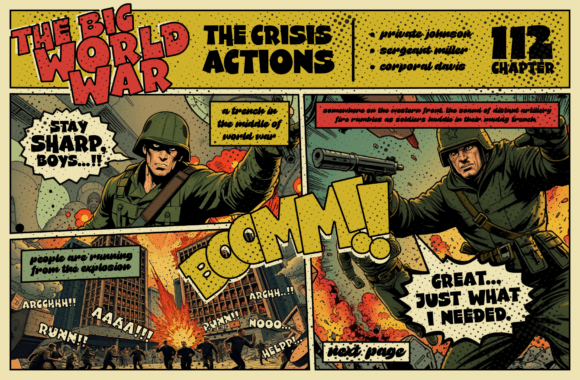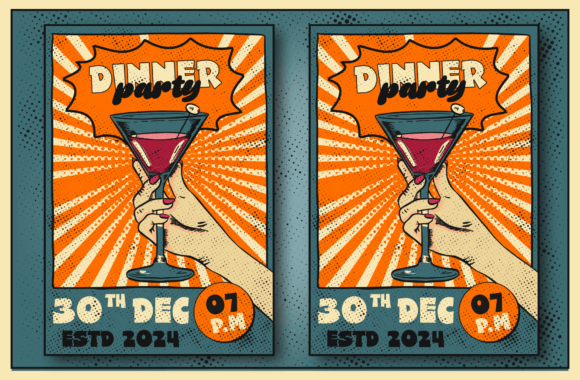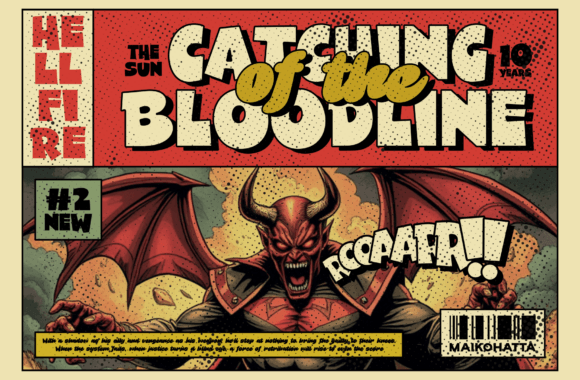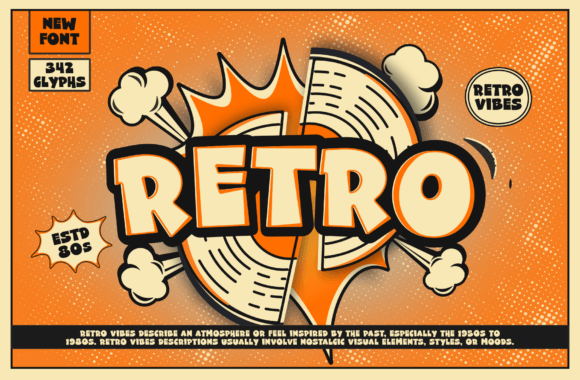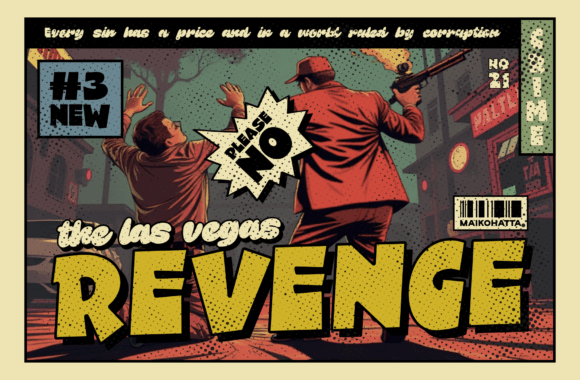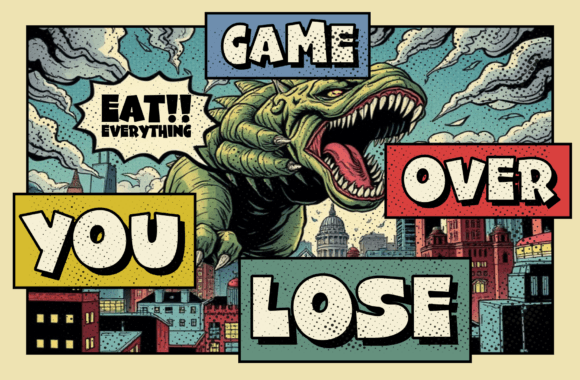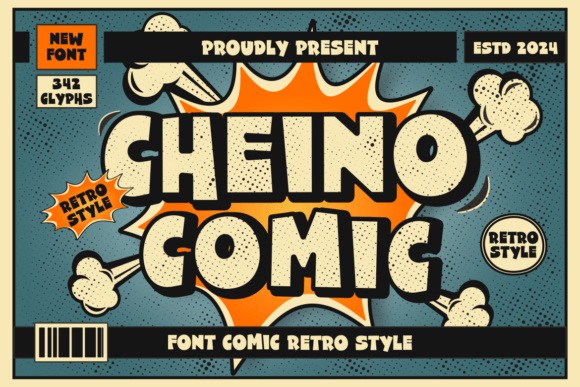
Introducing Cheino Font: Add a Touch of Comic Retro Fun to Your Designs
Are you tired of using the same old fonts in your designs? Do you want to add a touch of playfulness and fun to your projects? Look no further than Cheino Font, our newest addition to the world of typography. This comic retro font is designed to bring joy, cheerfulness, and a light atmosphere to your designs, making it perfect for projects that require a youthful and energetic feel.
What is Cheino Font?
Cheino Font is a handwritten-style font that is reminiscent of the classic comics and cartoons of the past. Its unique and quirky design makes it an excellent choice for designers and crafters who want to add a dash of personality to their work. With its bold lines, playful curves, and energetic vibe, Cheino Font is sure to capture the attention of your audience and leave a lasting impression.
Characteristics of Cheino Font
So, what makes Cheino Font so special? Here are some of its key characteristics:
• Handwritten style: Cheino Font has a distinctly handwritten feel, which gives it a personal and approachable touch.
• Comic retro vibe: Inspired by classic comics and cartoons, Cheino Font has a nostalgic feel that’s sure to bring a smile to your face.
• Playful and fun: This font is designed to be playful and fun, making it perfect for projects that require a lighthearted and youthful feel.
• Bold lines and curves: Cheino Font features bold lines and curves that give it a dynamic and energetic feel.
Use Cases for Cheino Font
So, what can you use Cheino Font for? The possibilities are endless! Here are some ideas to get you started:
• Poster designs: Add a pop of fun and color to your poster designs with Cheino Font.
• Invitation cards: Make your invitation cards stand out with a playful and eye-catching font.
• Comics and cartoons: Cheino Font is a natural fit for comics and cartoons, adding a touch of nostalgia and authenticity to your work.
• Promotional materials: Use Cheino Font to create promotional materials that appeal to a younger audience or those looking for a fun and lighthearted feel.
Why Choose Cheino Font?
With so many fonts to choose from, why should you choose Cheino Font? Here are just a few reasons:
• Unique and distinctive: Cheino Font is a one-of-a-kind font that will set your designs apart from the crowd.
• Easy to read: Despite its playful design, Cheino Font is easy to read and understand, making it perfect for body text and headlines.
• Versatile: Cheino Font can be used for a wide range of projects, from posters and invitations to comics and promotional materials.
Cheino Font is a game-changer for designers and crafters who want to add a touch of fun and playfulness to their work. With its unique comic retro vibe, bold lines, and curves, this font is sure to capture the attention of your audience and leave a lasting impression. So why wait? Download Cheino Font today and start creating designs that are full of joy, cheerfulness, and a light atmosphere.
Whether you’re a seasoned designer or just starting out, Cheino Font is an excellent addition to your typography toolkit. So go ahead, get creative, and have fun with Cheino Font!